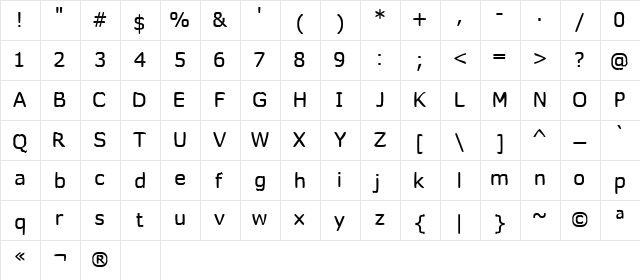
Wormfont Regular
Design Context for Wormfont Typeface
Wormfont is a composed and adaptable typeface that performs quietly and consistently across a wide range of design contexts.